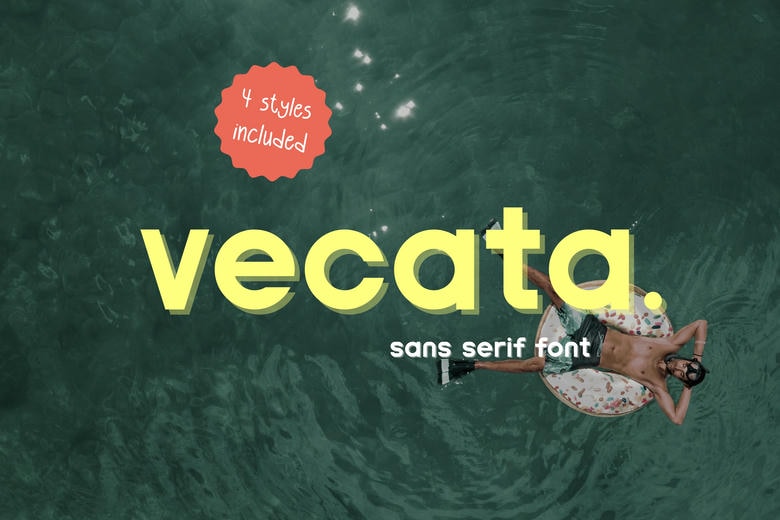
Vecata Font
Vecata is a clean, contemporary sans serif font created by creators to prefer minimalist style with a high visual impression. It is ideal in bold headlines and elegant branding projects owing to its even lines and harmonious letters. It could be a logo, social media post, web page, package, or editorial layout, Vecata offers a sleek and modern appearance.
Vecata Sans Serif Font